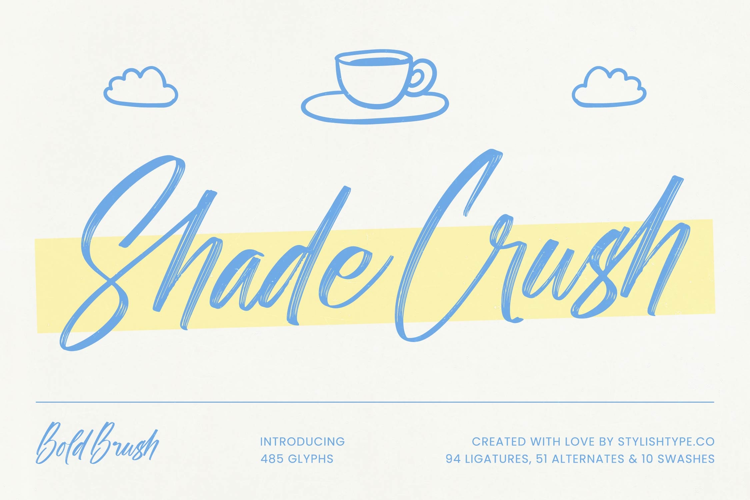
Shade Crush - Bold Brush Font
Shade Crush
Shade Crush Italic
Unleash authentic, high-impact energy into your design projects with Shade Crush - Bold Brush Font. This expressive script captures the genuine, rapid motion of a real brush, offering a beautifully raw and immediate aesthetic. Its bold strokes and natural, slightly textured finish ensure your typography commands attention, providing a perfect blend of artistic freedom and professional readability. The inherent dynamism of Shade Crush - Bold Brush Font makes it an essential tool for designers seeking a truly handcrafted look that stands out in a crowded digital landscape.